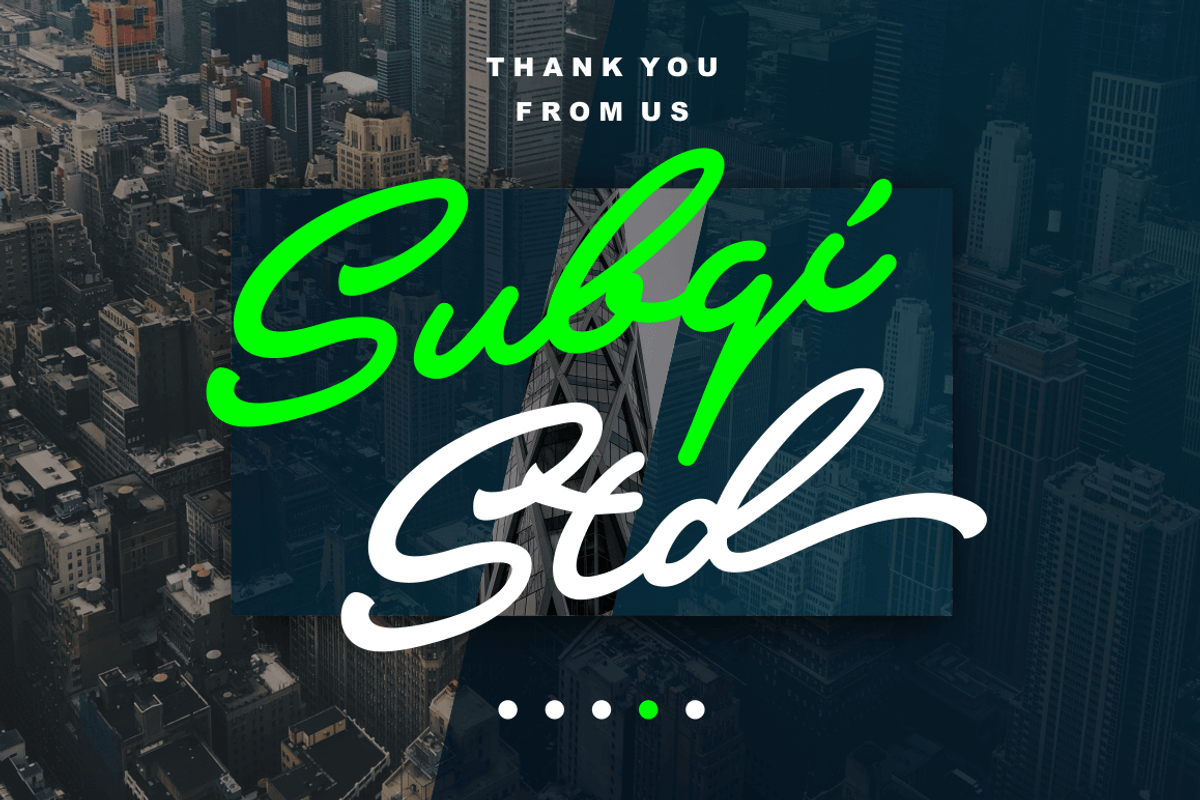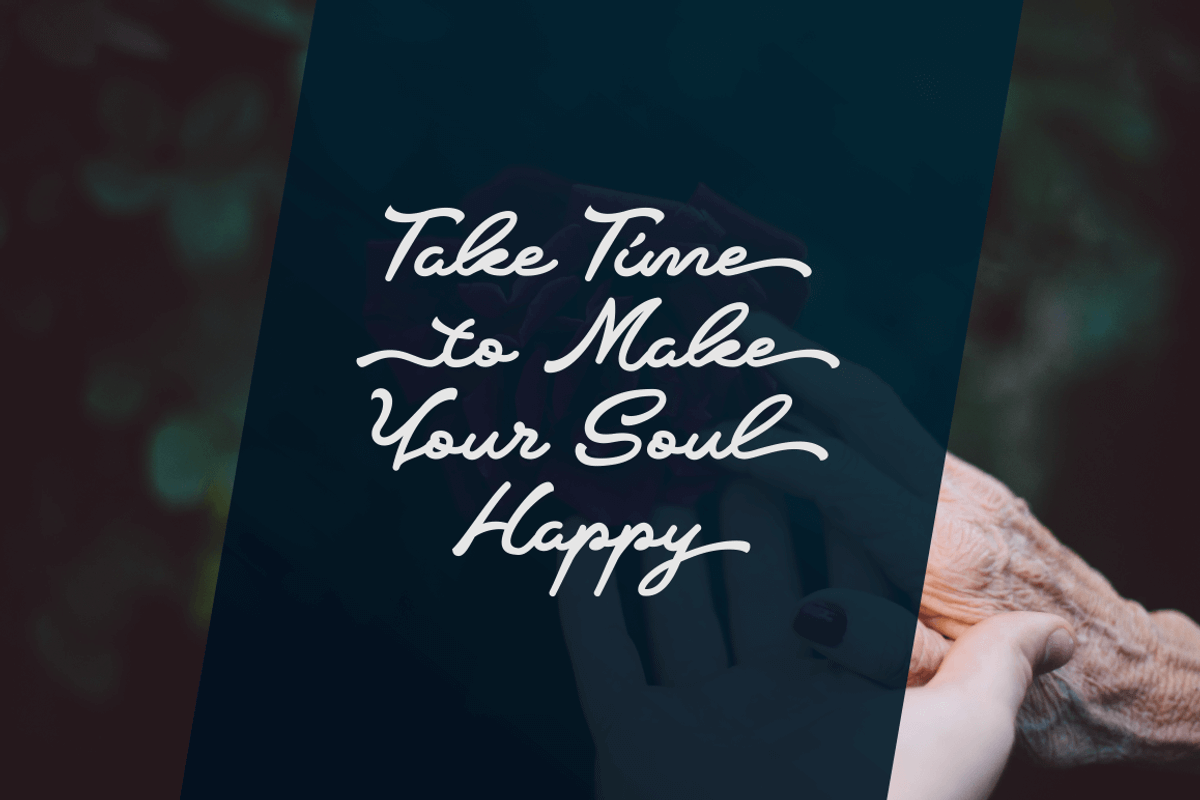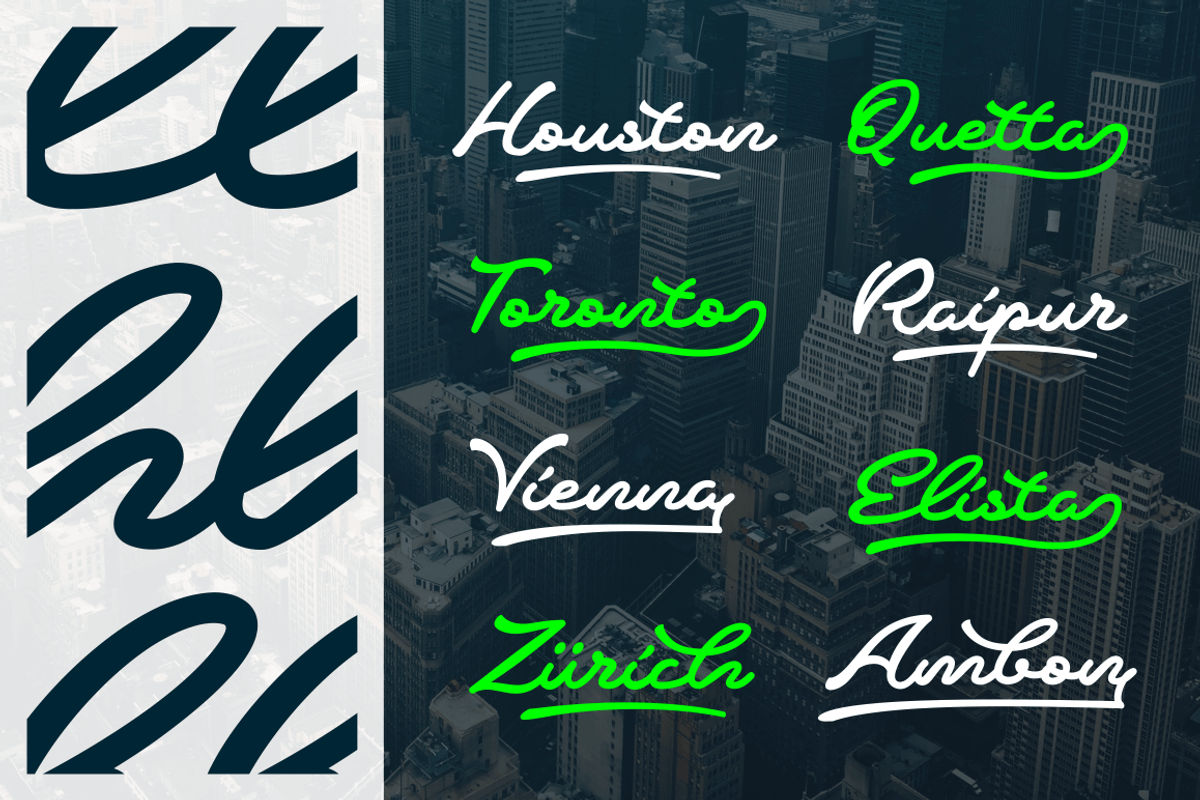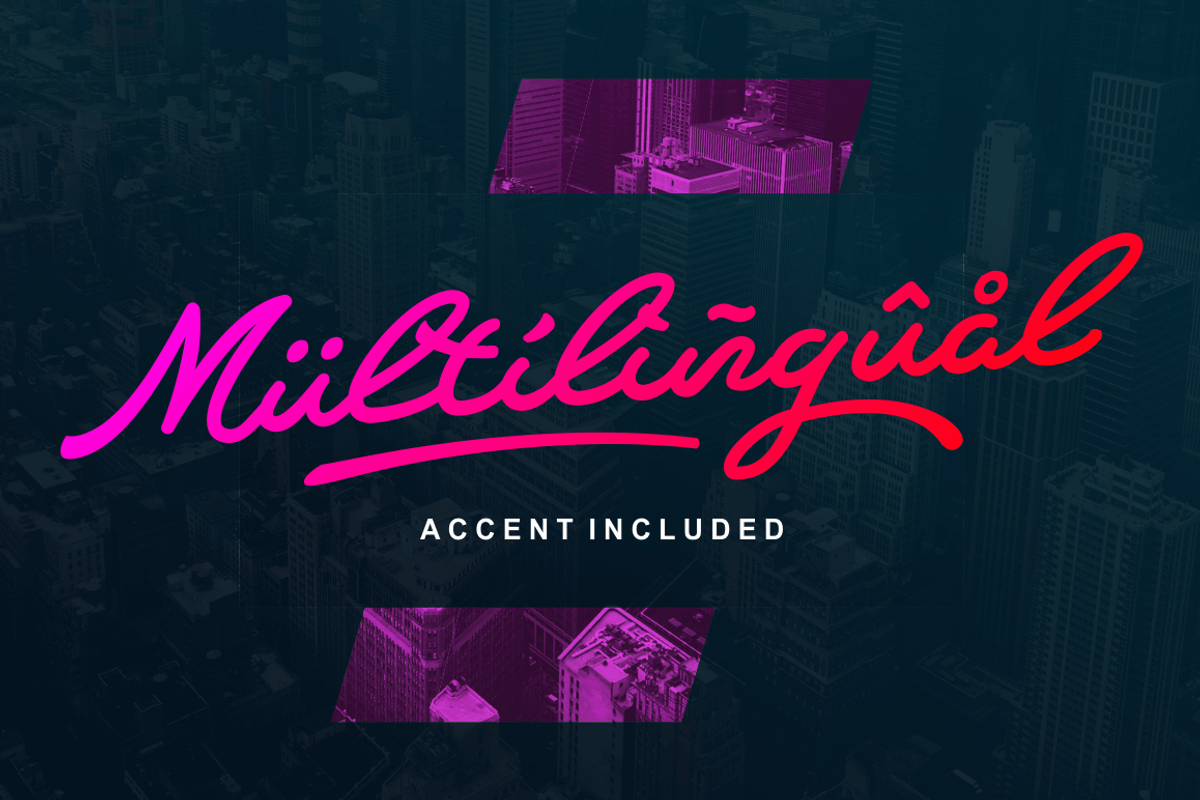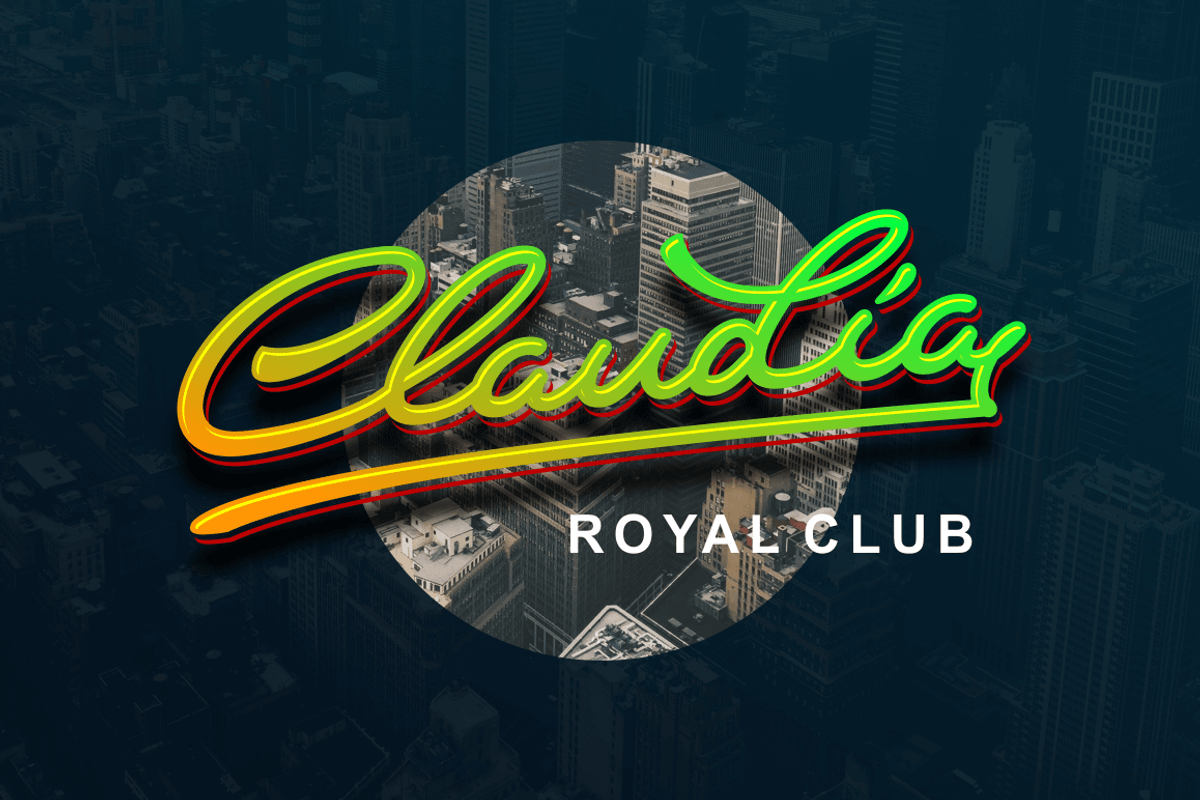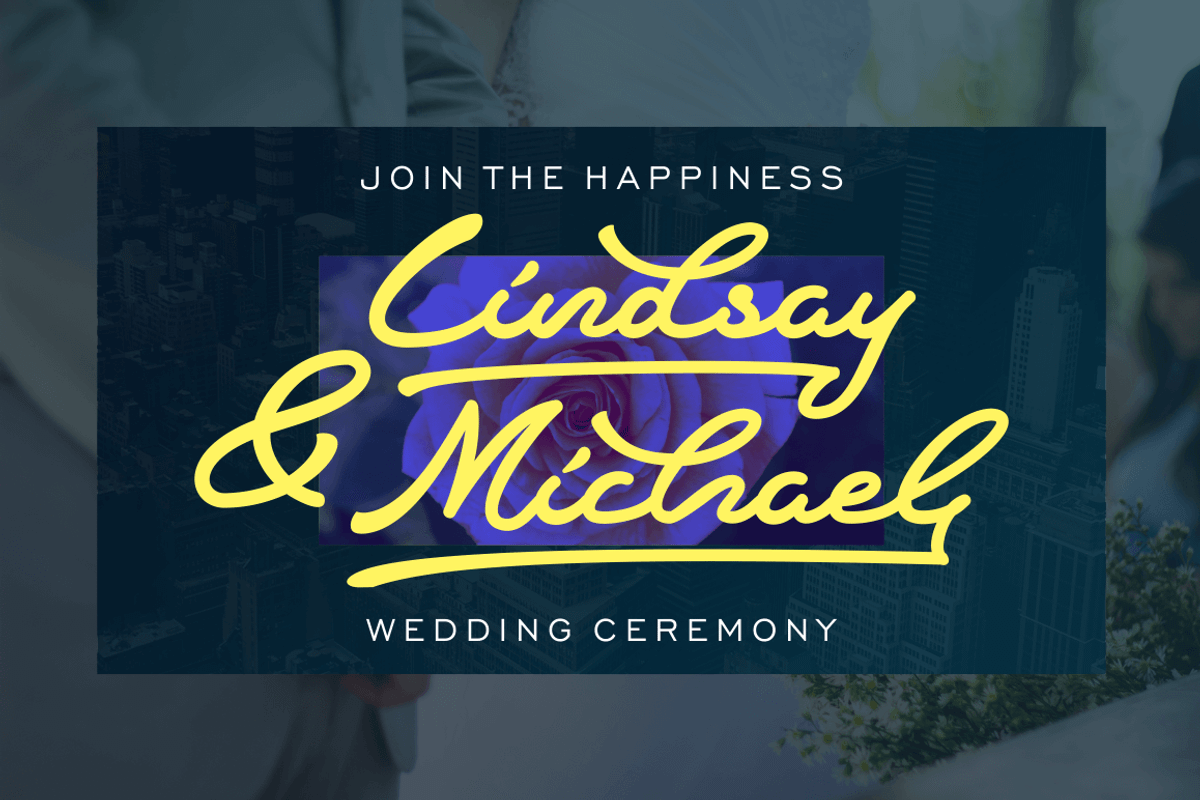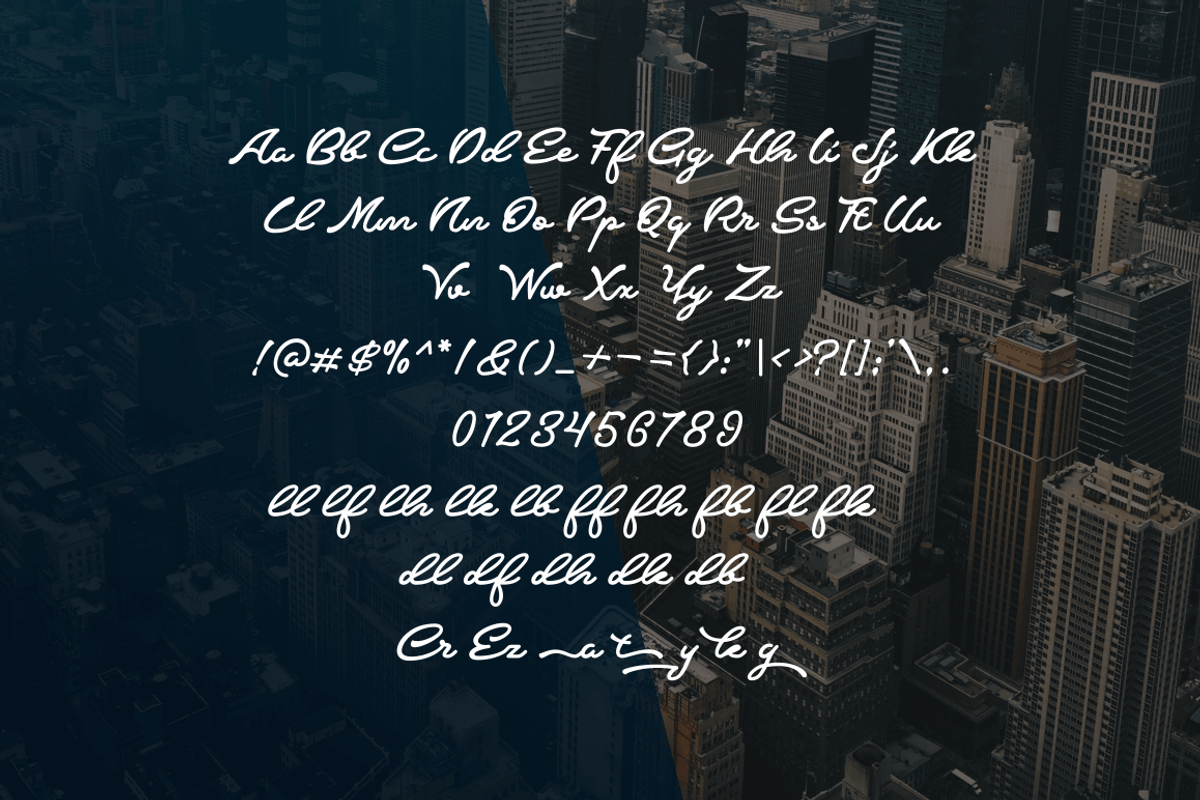
Crumble
Crumble is our new font. An elegant and classy script with signature style on it. May called 'Crumble' but this font has been made very carefully to get the best movement flow. This font will perfect for some Diplay pupose like : Logotype, Make some quotes, Poster, Wedding Invitation, etc. Even can work as well for your body text. You can check the preview for better look at it and how to use the opentype features.
- Standard Character ( Uppercase, Lowercase, Numeric, Punctuation )
- Multilingual Accent Support
- Alternates Character